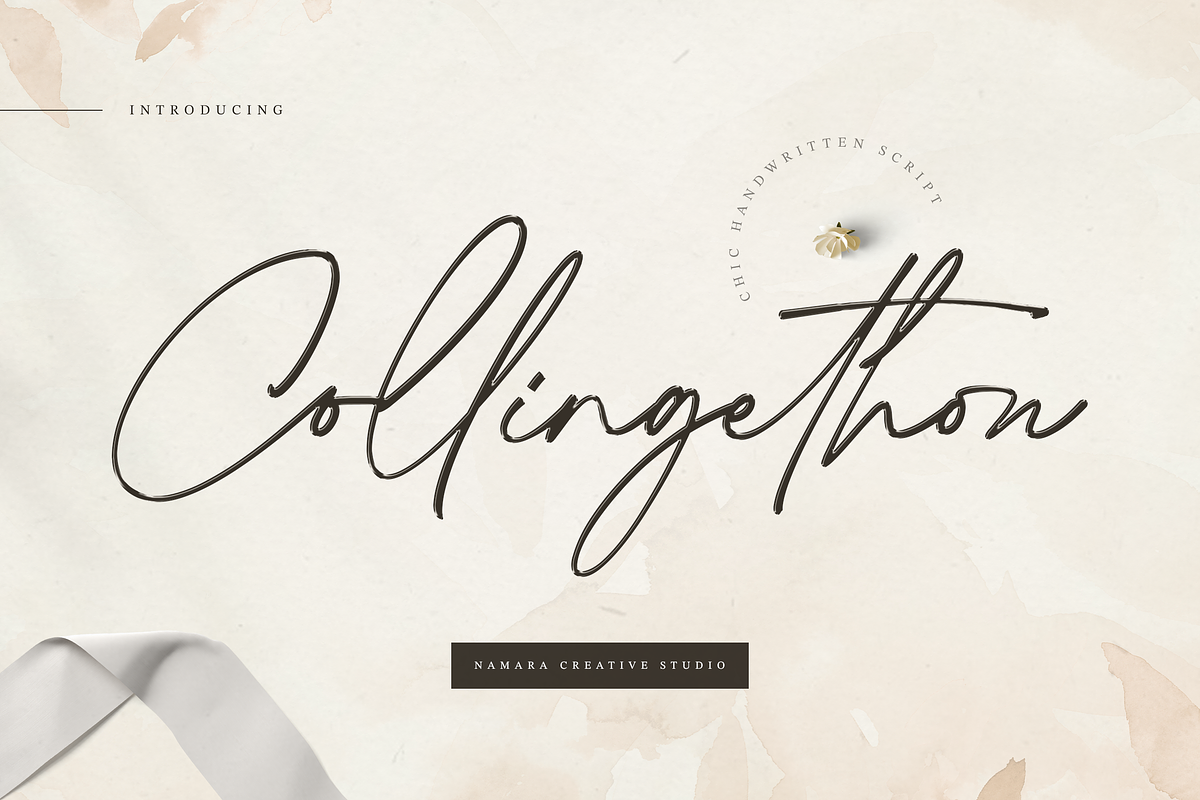
Collingethon Chic Handwritten Script Font Free Download is a luxurious and elegant typeface that captures the beauty of natural handwriting with a high-end twist. Featuring flowing strokes, stylish ligatures, and graceful curves, this font is perfect for wedding invitations, upscale branding, social media posts, beauty packaging, and fashion editorials. It adds a personal yet polished touch to any design.
Crafted for sophistication and legibility, Collingethon delivers a smooth script that looks handwritten but remains clean and professional. It’s an excellent choice for creatives who want to blend charm and class in one stunning typeface.